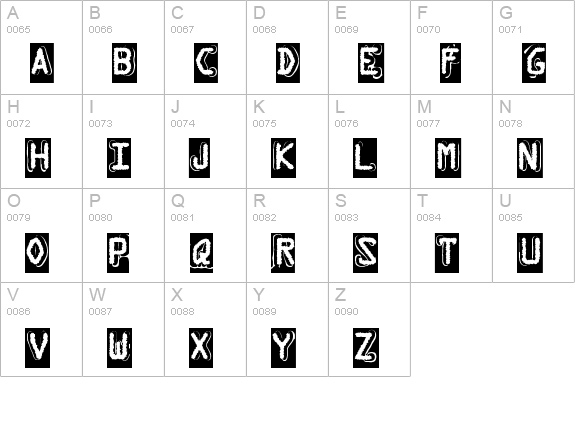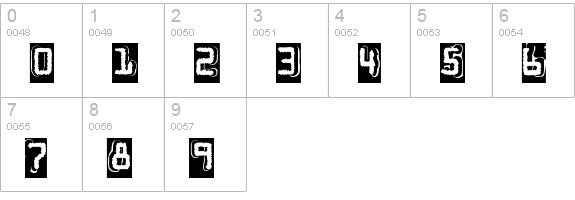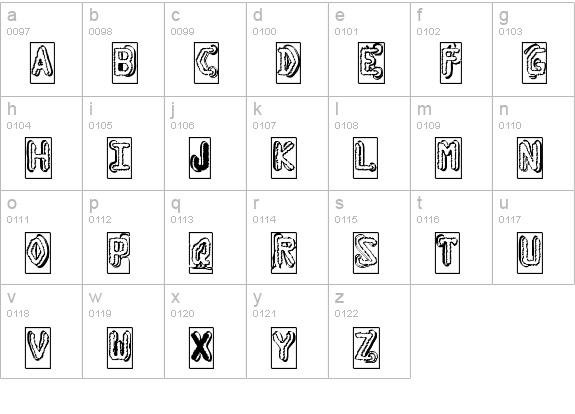
Dymo Grunge Bubble font is a unique and eye-catching typeface that combines elements of grunge and boldness. Its quirky design features irregular shapes and distressed edges, giving it a distinct and edgy look. This font is perfect for projects that require a touch of rebelliousness and creativity. Best of all, Dymo Grunge Bubble font is available for free download at FontsMarket.com. Whether you're working on a poster, logo, or any other design project, this font will add a cool and unconventional touch to your work. Get your hands on this free font today and let your creativity run wild!